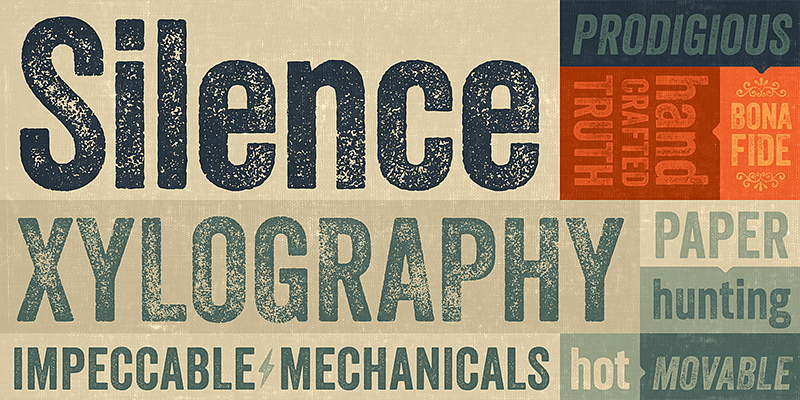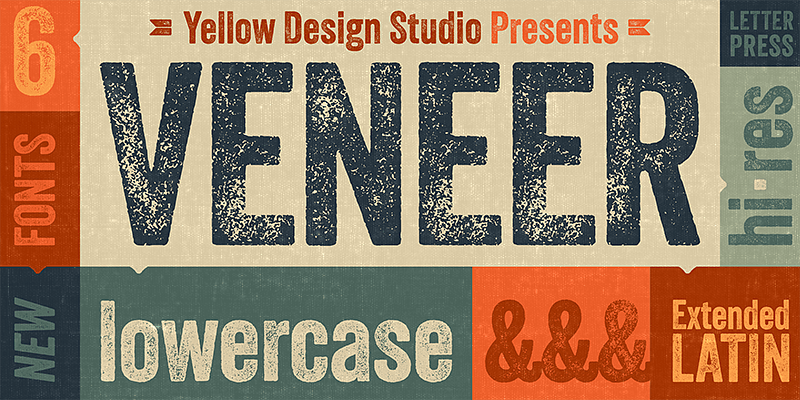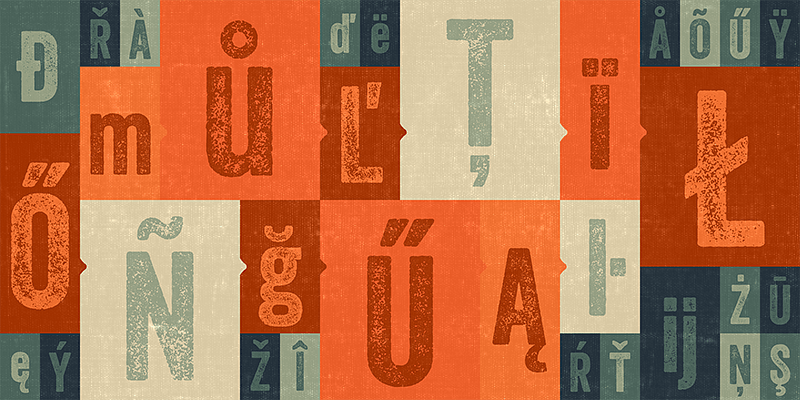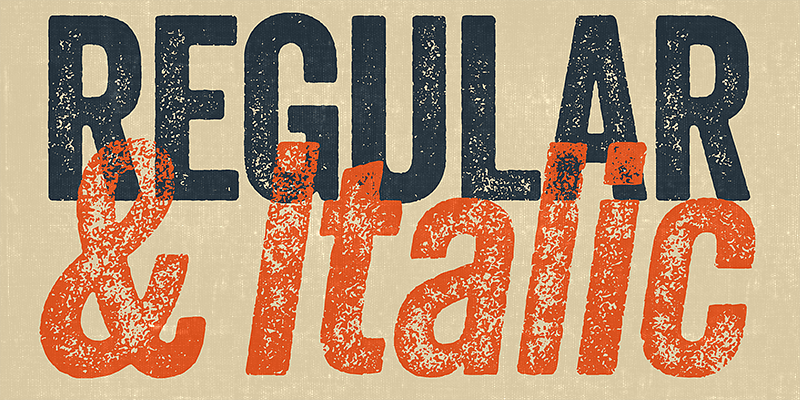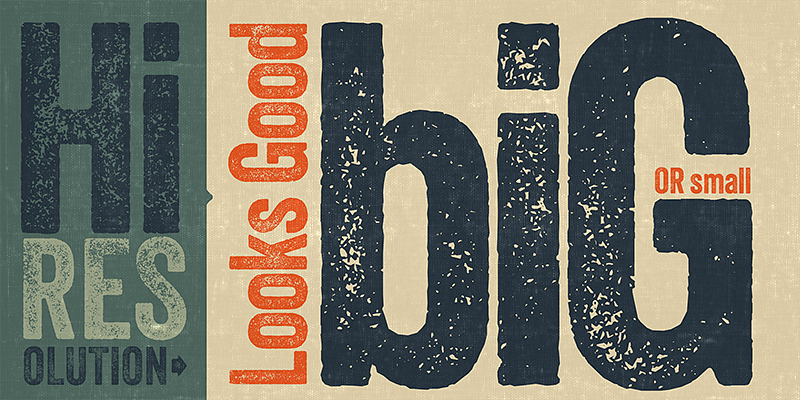
The Veneer family is a hand-crafted letterpress font that’s vintage and authentic with a touch of grunge. It includes Veneer, Veneer Two, and Veneer Three. Mix and match as desired to create realistic letterpress type. It’s highly customizable, with six distress options for every letter and three for all other characters. Because it’s remarkably detailed, it looks great even at huge sizes. In addition, it includes a matching set of funky extras.